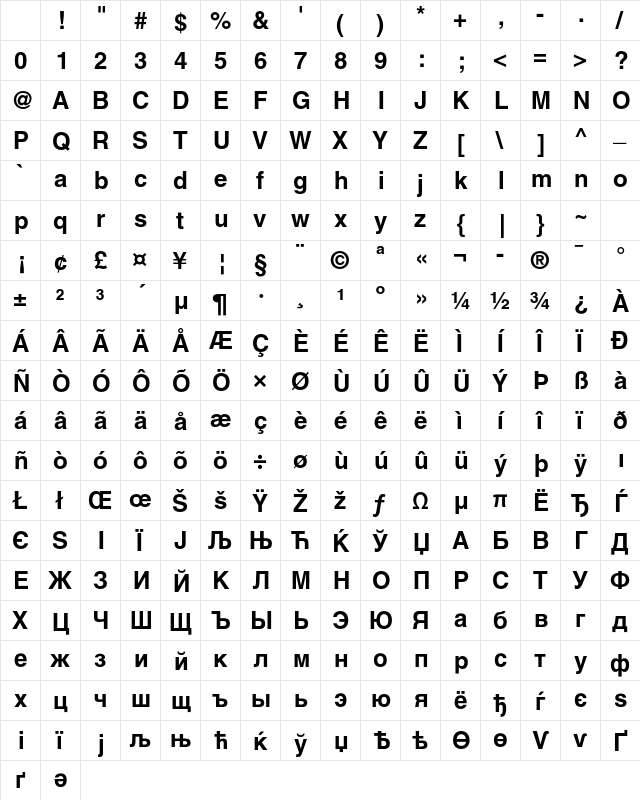
Helvetica LT Std Bold
Designer: Max Miedinger
Complete Helvetica LT Std Bold glyph index. Displaying only characters natively supported by Helvetica LT Std Bold font.
Design Context for Helvetica LT Std
Helvetica LT Std is a composed and adaptable typeface that performs quietly and consistently across a wide range of design contexts. Its bold stroke weight gives it real presence on the page.